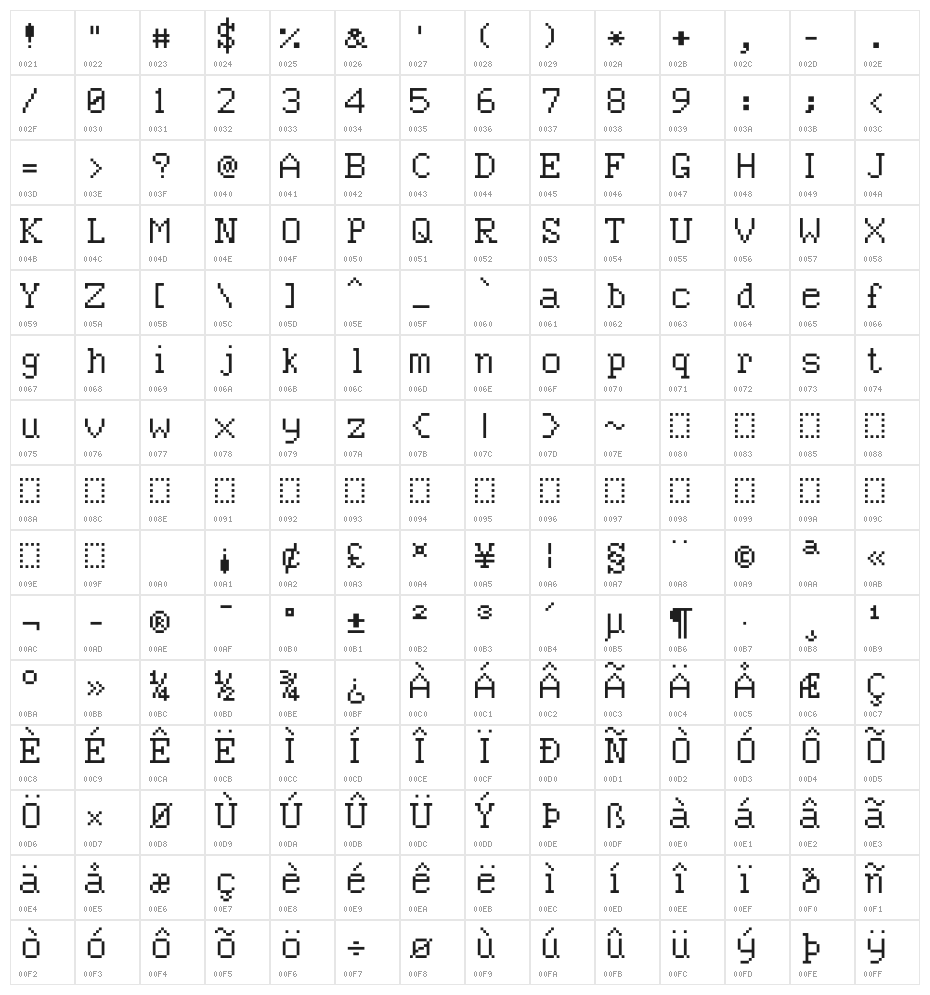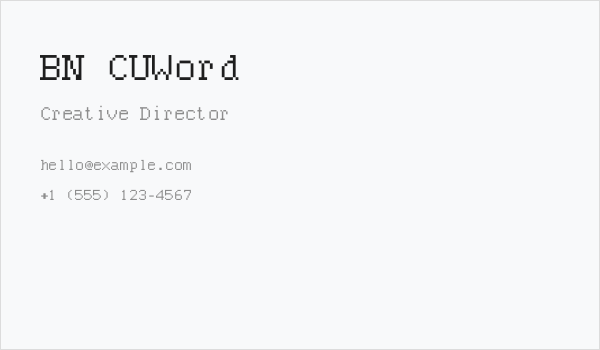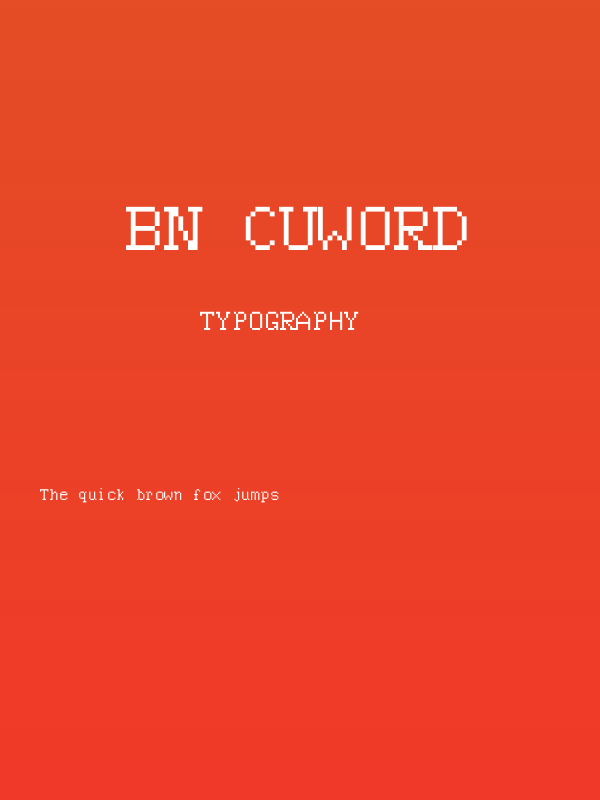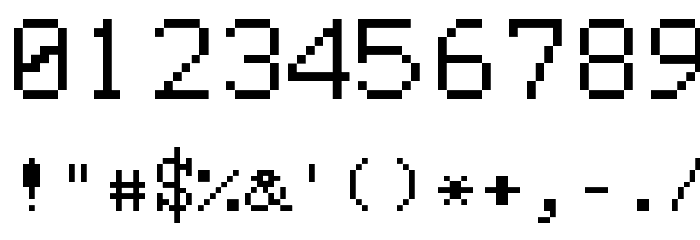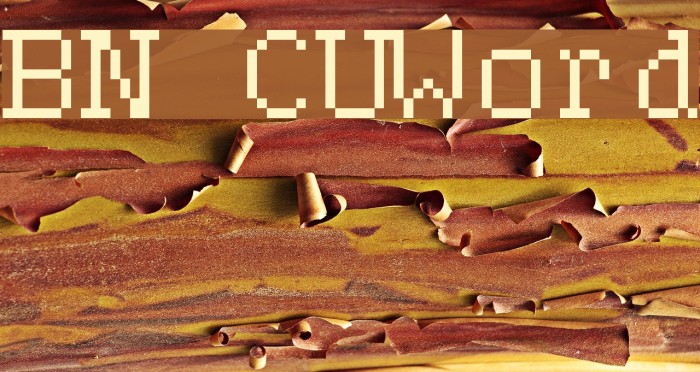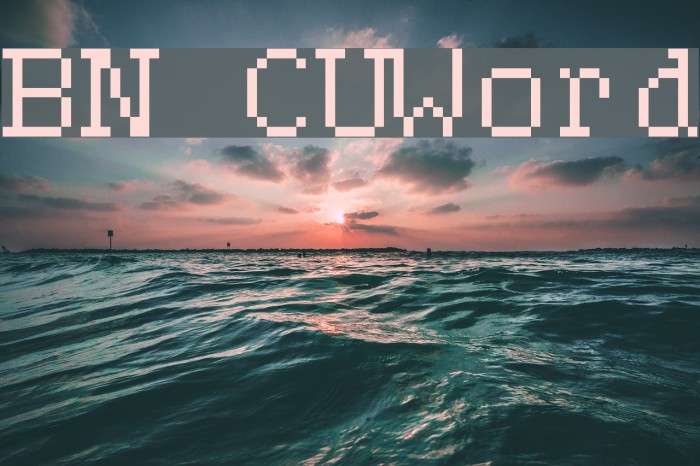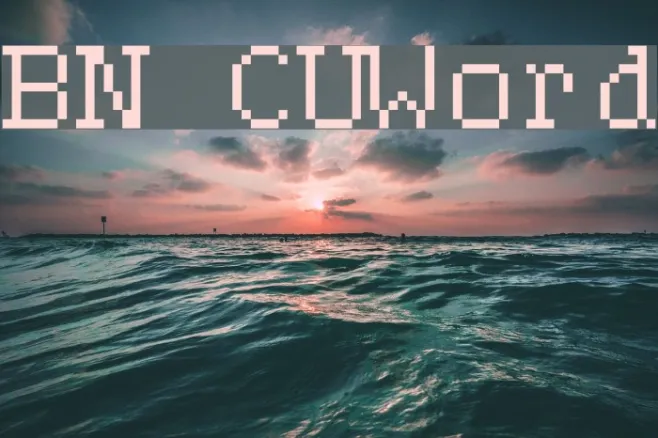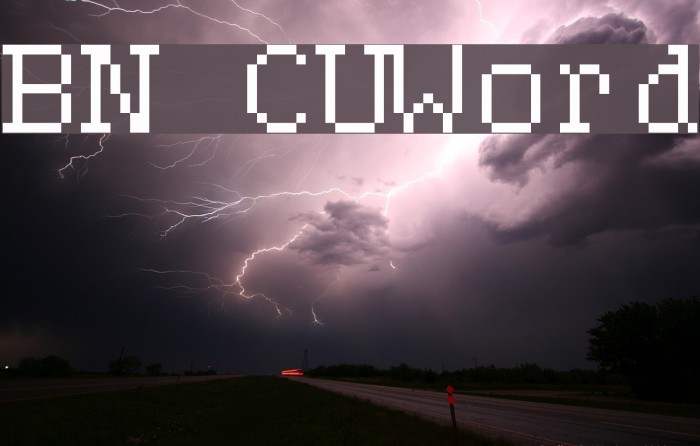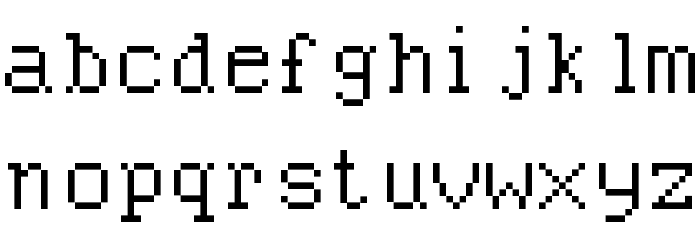
BN CUWord Font
BN CUWord Description
This font features a pixelated, monospaced design reminiscent of early computer and video game graphics. Each character is constructed with a grid-like precision, giving it a distinctly retro and digital appearance. The uniformity in width across all characters ensures a consistent and orderly look, ideal for coding or digital-themed projects. The uppercase and lowercase letters maintain a similar height, enhancing the monospaced effect. Numbers and special characters are crafted with the same pixelated style, ensuring visual harmony throughout. The font's simplicity and clarity make it highly legible, even at smaller sizes, while its nostalgic aesthetic evokes a sense of classic computing.
| Use Case | Coding, Digital art, Retro-themed designs |
| Proposed Projects | Ideal for coding environments, retro video games, digital art projects, and any design requiring a nostalgic computer theme. |